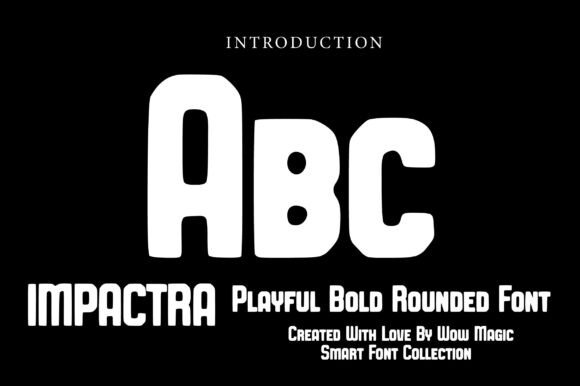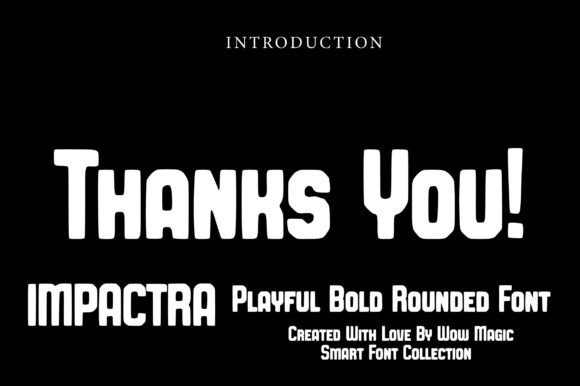
Introduction to Impactra Font
Impactra is a super bold, chunky display font with rounded corners and a strong modern presence.
Its thick, compact letterforms and smooth curves create a powerful “impact” look that feels fun, confident, and highly readable The heavy weight and tight shapes make it perfect for attention-grabbing headlines, logos, and branding that needs instant visibility.
Key Features of Impactra Font
Why Choose Impactra Font?